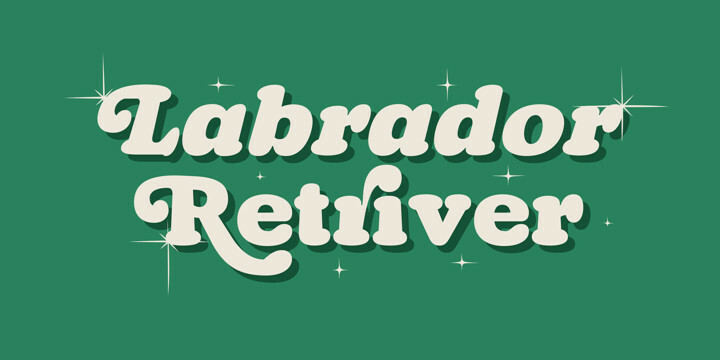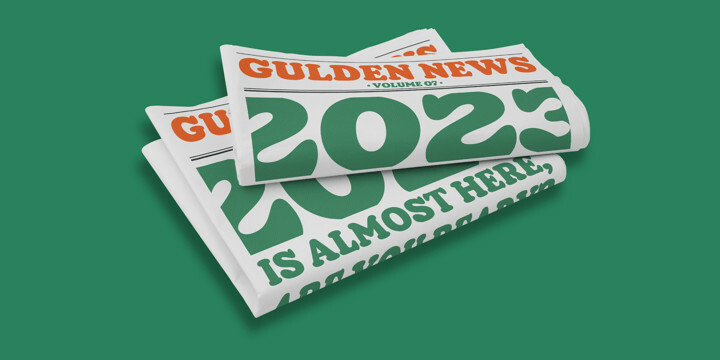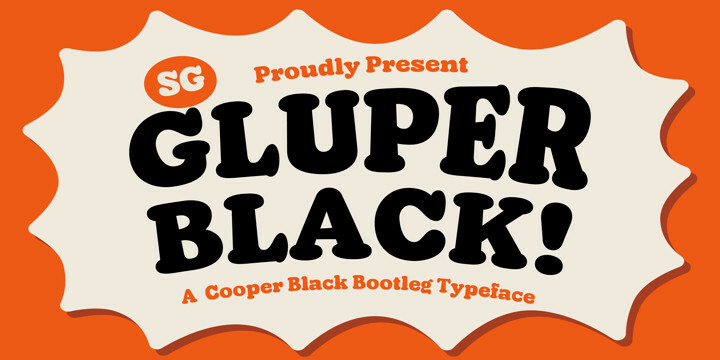
SG Gluper Font
SG Gluper FontSG Gluper – inspired by the OG Cooper Black typeface that is intended for display use. This retro serif font combination can handle many typographic uses but is best suited for headlines, branding, and logos. It has a multilingual feature that supports more than 200 languages. Gluper also has an alternate version including swashes and ligatures.